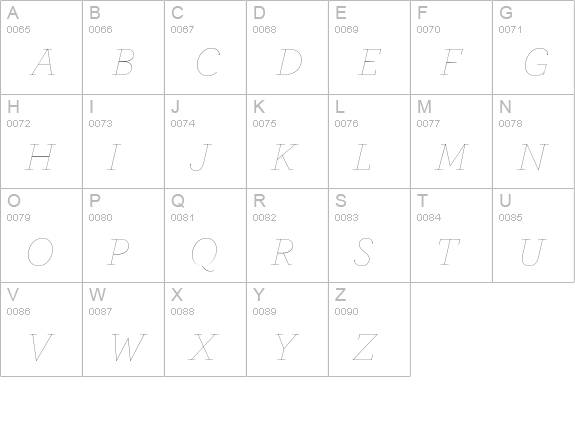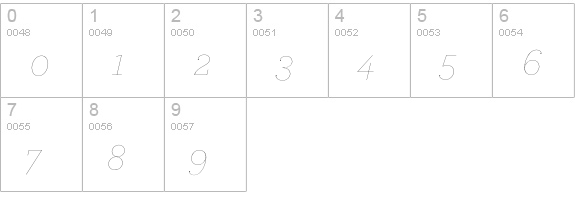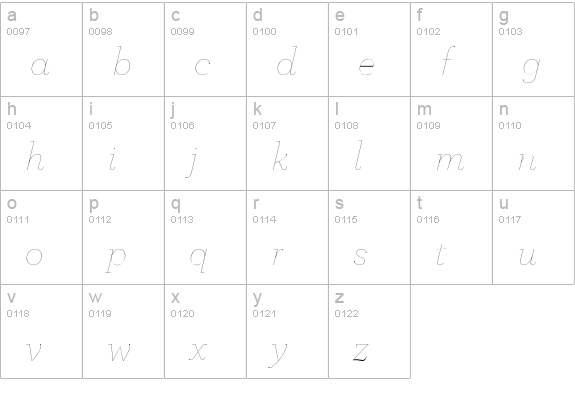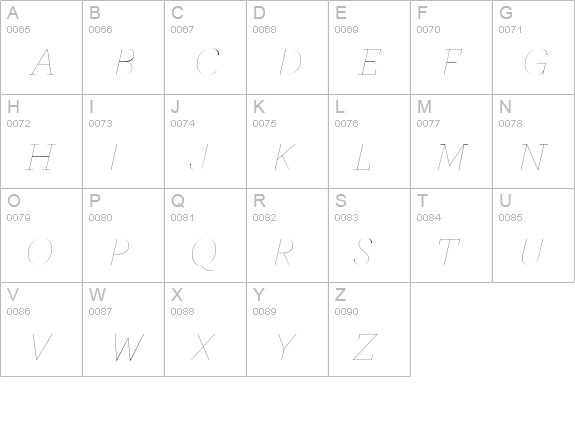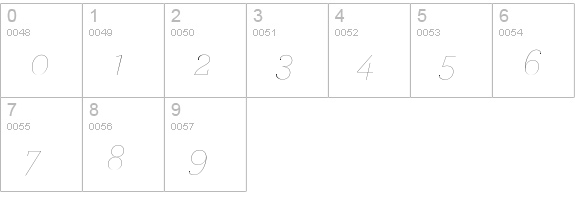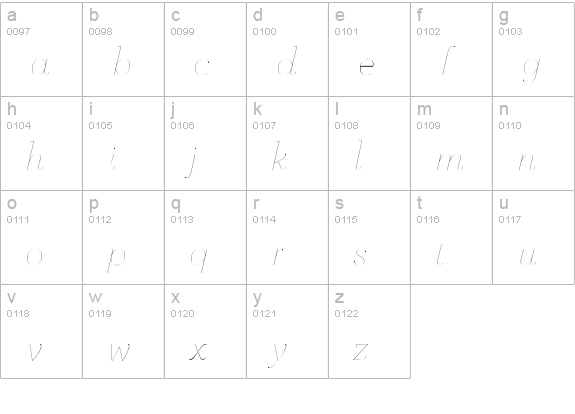
ArcherPro Hairline Italic Font Details
ArcherPro Hairline Italic is an exceptionally fine, almost invisible, italic variant in the ArcherPro typeface family \xE2\x80\x94 well suited to high-end editorial, fashion, and luxury display use.
Introducing ArcherPro Hairline Italic font - a sleek and sophisticated typeface designed to elevate your designs with its graceful and modern appearance. The delicate and elegant strokes of this font make it perfect for adding a touch of refinement to any project. Whether you're working on branding, editorial design, or any other creative endeavor, ArcherPro Hairline Italic font is sure to make a lasting impression. And the best part? ArcherPro Hairline Italic font is available for free download at FontsMarket.com, allowing you to access this premium quality font without breaking the bank. Don't miss out on the opportunity to enhance your designs with this beautiful and versatile typeface. Download ArcherPro Hairline Italic font today and take your projects to the next level!